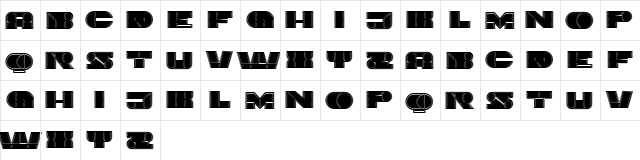
Imbecile Outlined Filled
Design Context for Imbecile Outlined Typeface
Imbecile Outlined is built around its visual character rather than neutral utility — its distinctive forms are designed to make an impression at display sizes.
Font Pairing: Pair with a clean neutral sans-serif for body copy to let Imbecile Outlined's character lead without overwhelming the composition.
Pro Tip: Treat Imbecile Outlined as the centrepiece of your typographic hierarchy. One strong heading set in a decorative face can carry an entire layout.